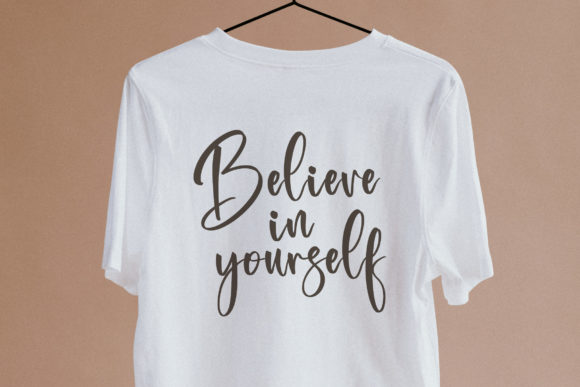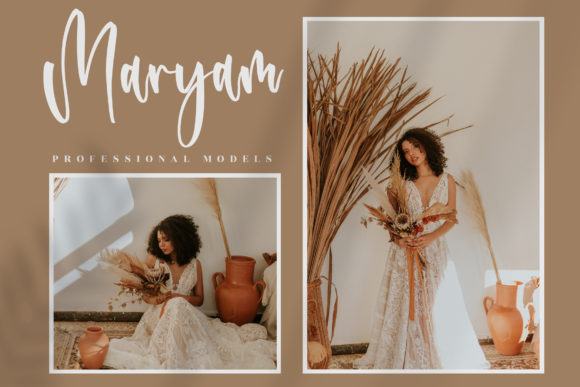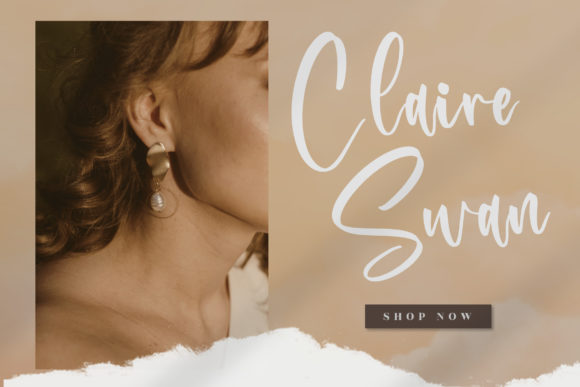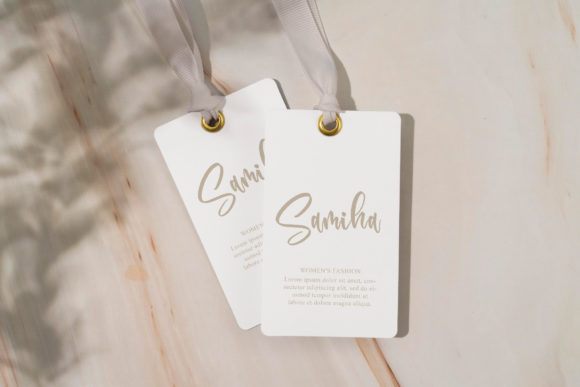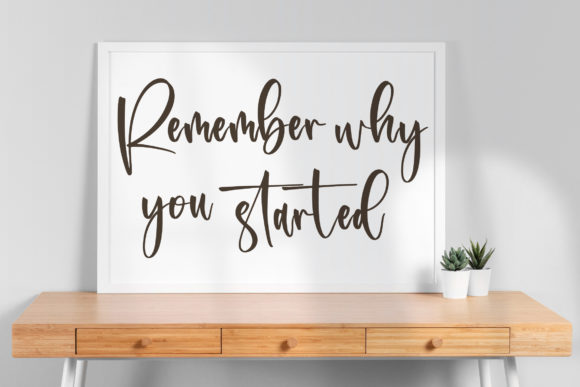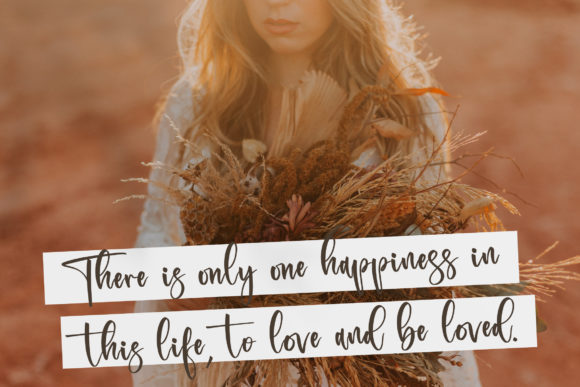
Introduction to Registeria Font
As a designer, have you ever been in the middle of a creative project, pouring over lines of code, tweaking every detail, only to find the perfect font to elevate your design – and then realize it’s not quite right? This is where Registeria Font comes in, a magical script font carefully crafted with a touch of elegance.
With its PUA encoded design, Registeria Font allows you to access all of its glyphs and swashes with ease, giving you the freedom to add a professional touch to your projects. Whether you’re working on a high-end design or a simple logo, Registeria Font is a valuable resource for designers who demand high quality and sophistication.
Key Features of Registeria Font
- High-quality, professional font suitable for various creative projects, including graphic design and digital art.
- Transparent background, allowing for seamless integration with other design elements.
- Size: 1024 pixels in height, with a high-resolution design suitable for print and digital applications.
- Unique characteristics include elegant, cursive script and a wide range of language support, making it a versatile font for international projects.
Honest Review: Registeria Font
What works well is the clean and modern design of the font. It’s perfect for creating professional-looking materials like business cards, brochures, or even presentations. ✨
The transparent background makes it easy to use on any background image or color, giving you a lot of flexibility with your design. Another plus is the high quality of the font, which makes it perfect for both digital and print materials.
- The font selection is limited, so you might not find a style that suits your specific needs.
- The font may not be as versatile as some other popular fonts, making it less suitable for creative projects that require a wide range of styles.
- ⚠️ Some users may find the font a bit too minimalist, which can make it difficult to read in certain contexts.
Overall, I think the Registeria Font is a solid choice for designers who need a clean and modern font for their projects. While it may not be perfect, it’s definitely worth considering as a design resource.
Registeria Font
The Registeria Font is a high-quality design resource perfect for any creative project. With its unique and stylish aesthetic, it’s ideal for adding a touch of sophistication to your designs.
The Registeria Font is perfect for a variety of creative projects, including:
- Posters and advertisements
Transparent Background Option
The Registeria Font also features a transparent background option, making it perfect for designs that require a high level of customization and flexibility.